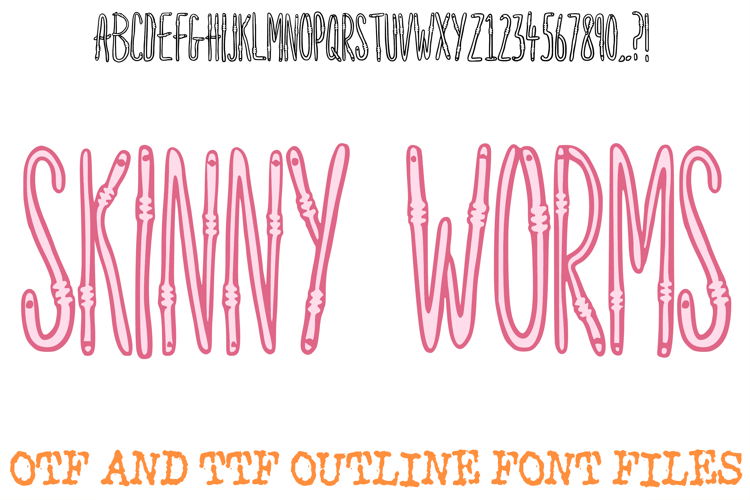
The Skinny Worms Font is a whimsical, earthbound display typeface featuring elongated, flexible letterforms modeled after wriggling garden worms. With its slender curves, segmented textures, and playful pink hues, this font is a premier choice for designers working on children’s educational materials, garden-themed branding, science fair posters, and quirky social media content.
The design captures a sense of curious movement, with hand-drawn outlines that give each letter a tactile, living personality. Whether you are building an identity for a nature-focused non-profit or designing vibrant apparel for a young explorer, this font provides a fun, high-contrast aesthetic that is both imaginative and surprisingly legible.
Why Your Designs Will Stand Out
Segmented Detail: Each character features realistic worm-like segments and rounded terminals, adding an authentic biological charm to your typography.
Tall Condensed Profile: The slender, vertical nature of the alphabet allows for space-saving headers that maintain a bold, hand-drawn impact.
Vibrant Earthy Palette: The soft pink tones and clean outlines ensure your headers pop against dark backgrounds or garden-themed photography.
Handcrafted Authenticity: The irregular, "wiggly" lines provide a tactile quality that adds a layer of human personality and humor to digital projects.